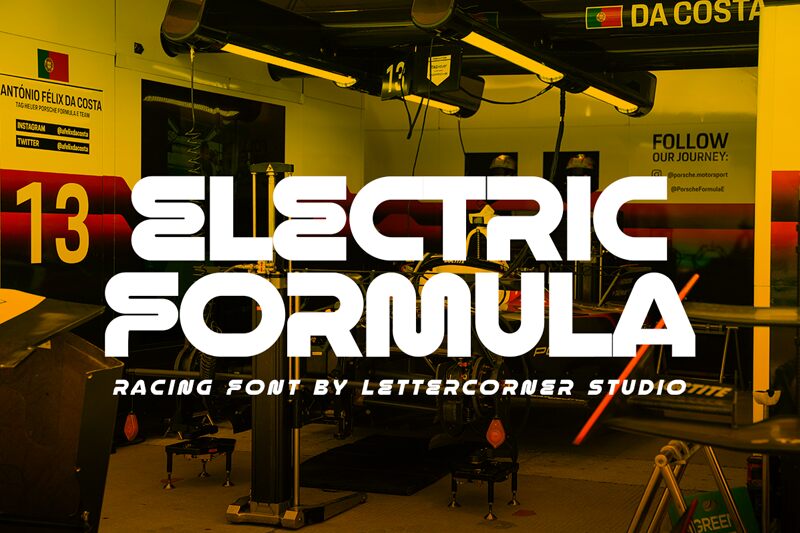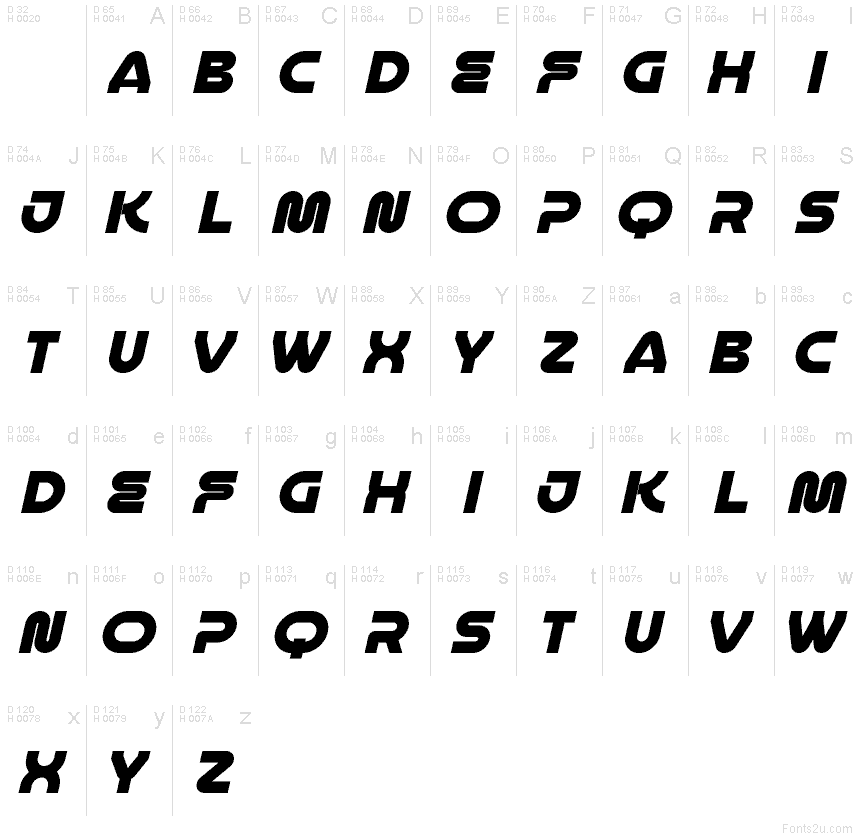
Electric Formula Italic
Electric Formula Italic font by Mocha Frappuccino is a free italic display font built for velocity. Part of the Electric Formula family, it leans hard into motion with an aggressive forward slant, slick tubular strokes, and shaved terminals that read like wind-sheared bodywork. The oval counters and compact rhythm deliver a streamlined, high-octane look without turning jagged or illegible.
Using Electric Formula Italic, you can punch up motorsport posters, esports branding, energy drink labels, automotive decals, event tickets, and sci‑fi game titles. Its racing‑retro DNA thrives in big, high-contrast settings where the slant and curves can breathe. For balance, pair this free font’s headlines with a neutral condensed grotesk in regular weight, and add a hair of extra tracking at smaller sizes.